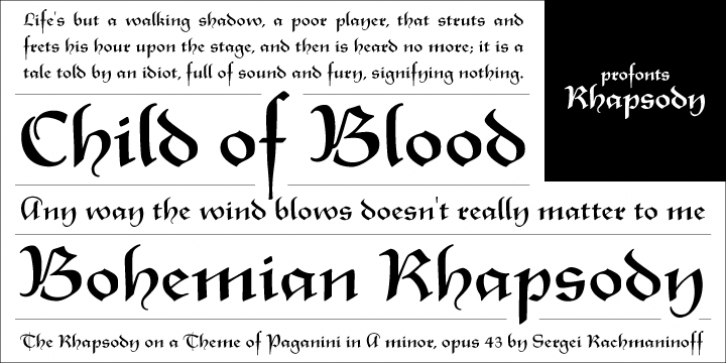
Rhapsody downloadDesigner: Ralph M. Unger
Publisher: profonts
Rhapsody clearly shows Unger’s love with Blackletters and Gothics.
In contrast to many existing Blackletters, Rhapsody is really easy to read. The calligraphic forms of the upper case combined with its lower case appear very special, very unique.
Rhapsody, had its origins in the 50s, was redesigned, completed and expanded by Unger for the URW++ FontForum.